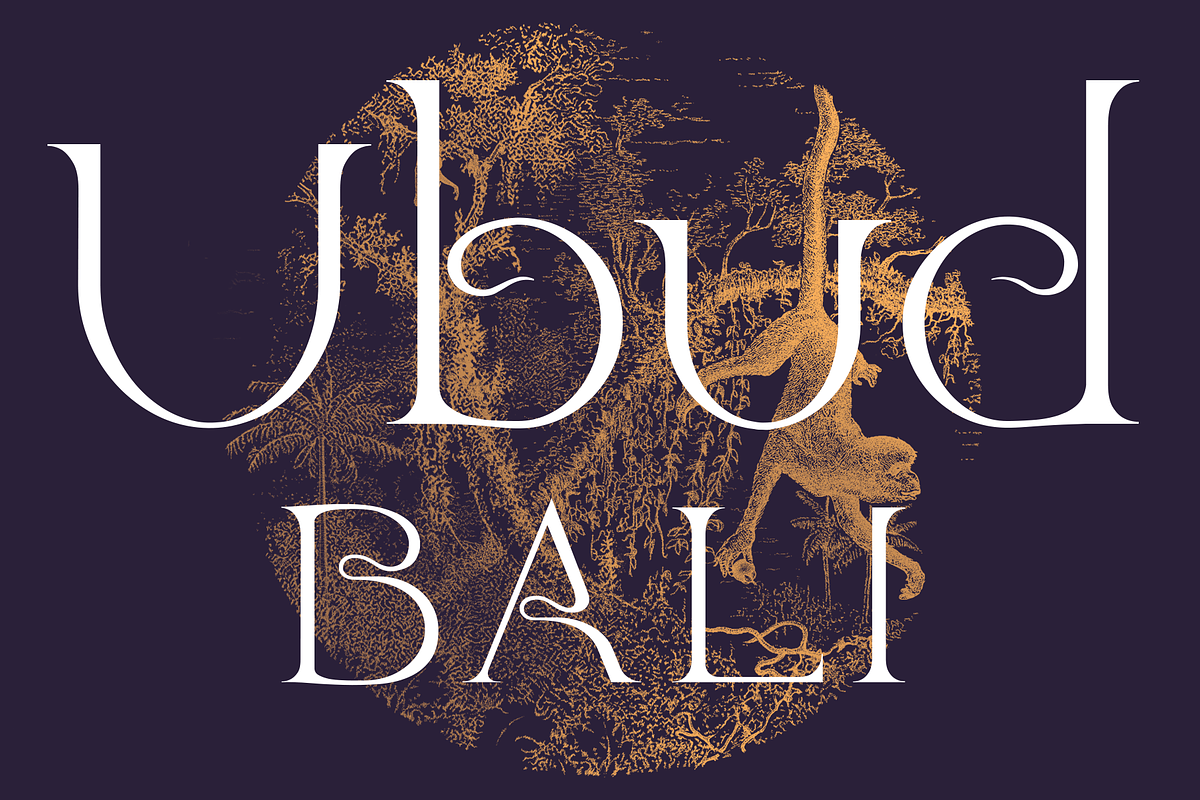
Ubud. Contemporary Serif Font Free Download offers a sleek and modern twist on the classic serif style. Inspired by the artistic soul of Ubud, Bali, this font blends elegance with minimalism, making it perfect for high-end branding, editorial design, and luxury packaging. Its clean lines and balanced curves give your text a refined and professional look.
Whether you're working on fashion magazines, website headers, or stylish logos, Ubud brings a calm sophistication that complements modern aesthetics. It stands out without overwhelming, allowing your content to speak with clarity and confidence.
Graphic designers and creatives looking for a versatile serif will love the flexibility Ubud offers. Its timeless appeal fits both digital and print projects. Don’t miss your chance to elevate your design—download Ubud. Contemporary Serif Font Free Download and give your visuals the classy edge they deserve.